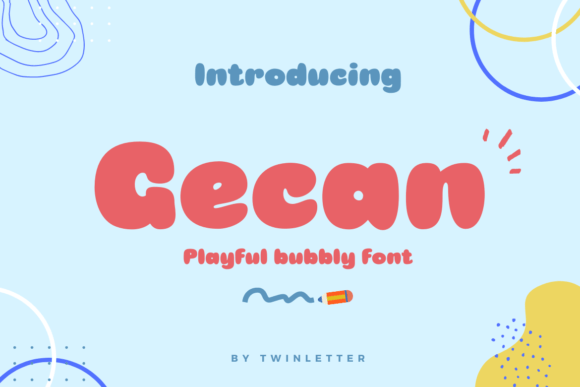
Journey into the world of Gecan, a display font family born from the creative minds of twinletter, designed to capture the essence of contemporary artistry. Its straightforward and approachable style, coupled with its beautifully curved letters, lends a touch of elegance and charm to any design.
Unleash your creativity and let Gecan be your storytelling companion. Whether you're crafting logos that demand attention, creating labels that exude sophistication, designing packaging that entices, or writing greeting cards that warm hearts, Gecan is your font of choice. Its versatility extends to comics, where its dynamic lines bring characters to life, and banners and titles, where its bold presence commands attention.
Gecan's versatility knows no bounds. Its ability to seamlessly blend with contemporary and handcrafted aesthetics makes it a perfect fit for a wide range of design styles. Logos and labels crafted with Gecan exude a modern and professional aura, while packaging adorned with its characters radiates a sense of elegance and sophistication. Greeting cards penned with Gecan's graceful strokes convey warmth and sincerity, while comics illustrated with its dynamic lines captivate readers with their vivid imagery.
With Gecan, your designs will transcend the ordinary and take on a life of their own. Its contemporary charm and handcrafted appeal will leave a lasting impression on your audience, ensuring that your message is conveyed with impact and style.